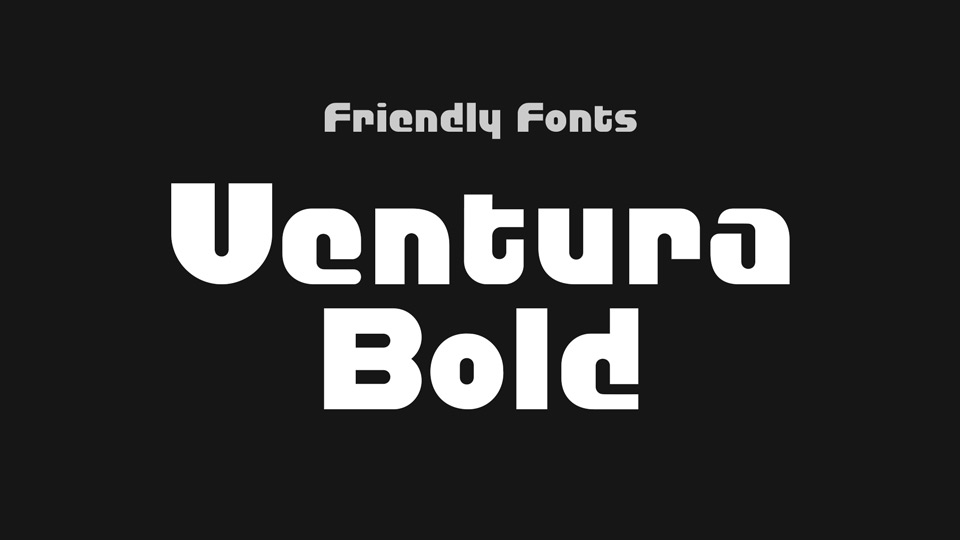
Download Ventura font, a bold geometric display typeface with a strong yet playful personality. Ventura is great for posters, headlines, games, prints and so on.
Designer: Friendly Fonts